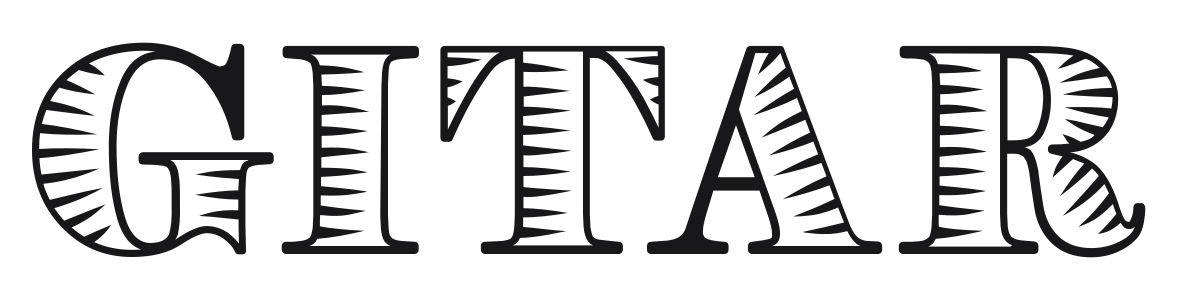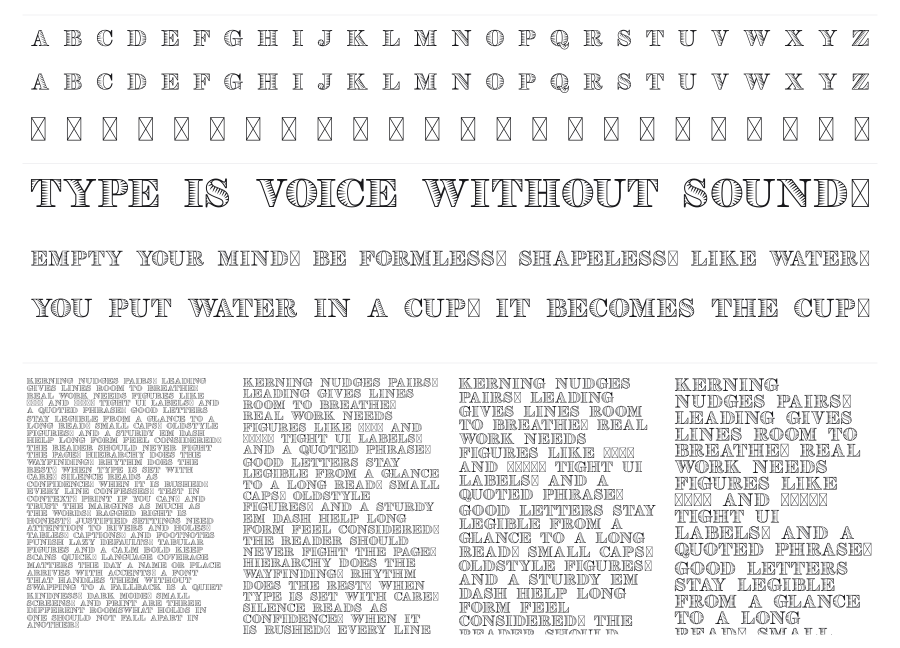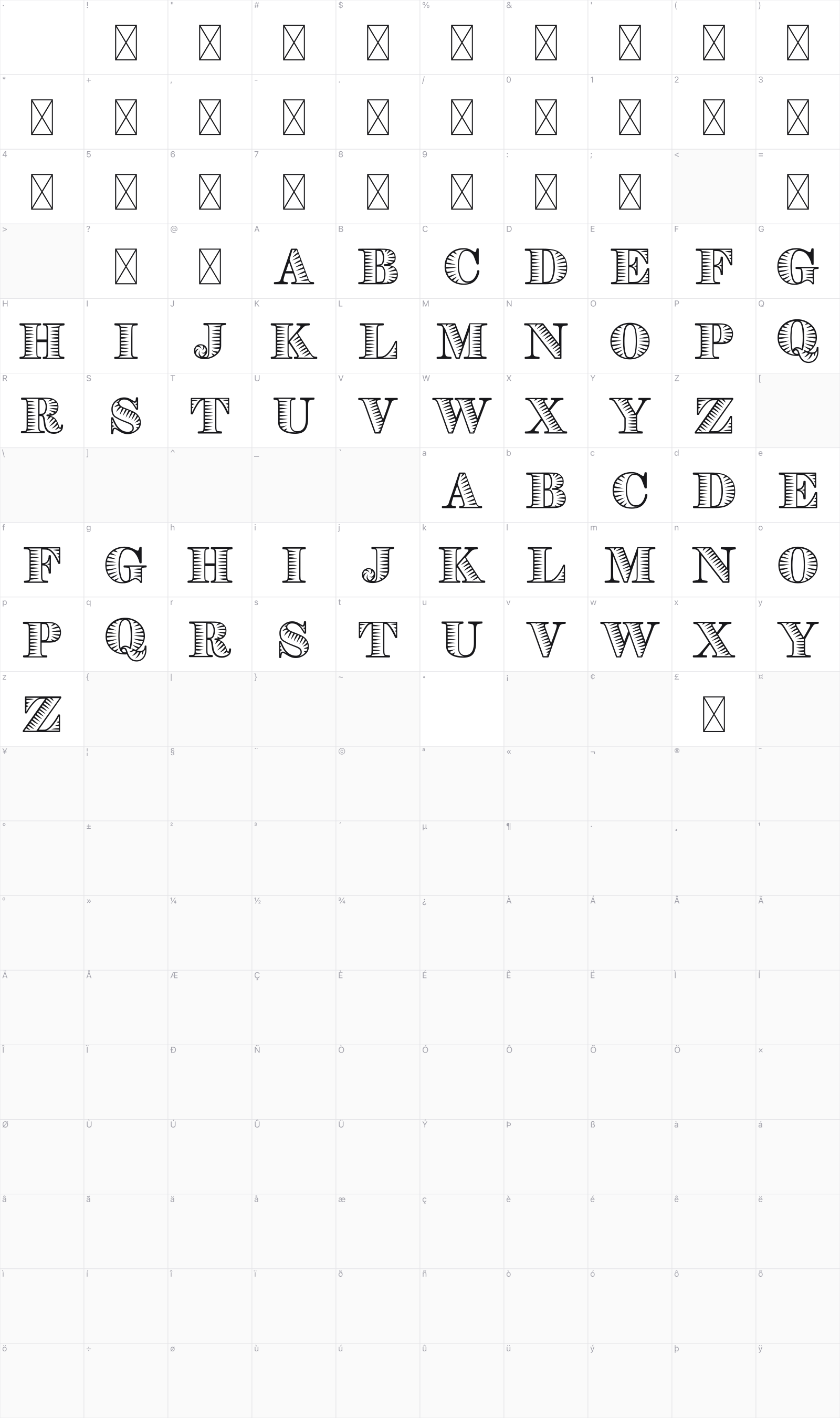
Gitar
Gitar is a Victorian inline display serif built on bold slab strokes filled with fine engraved line work. The technique comes straight from 19th-century wood type and circus poster traditions, where thick letterforms were decorated with internal hatching to catch the eye at distance. It brings an ornate, festive energy to headlines, packaging, and brand identities that lean into vintage craft.